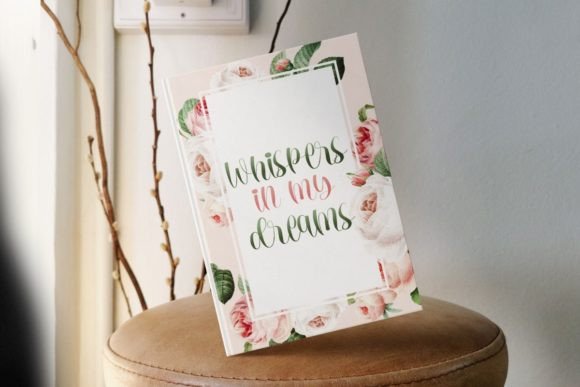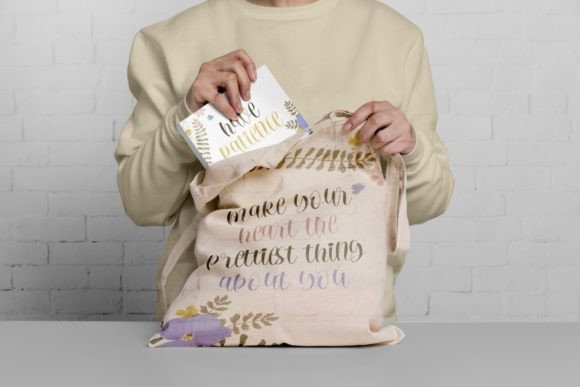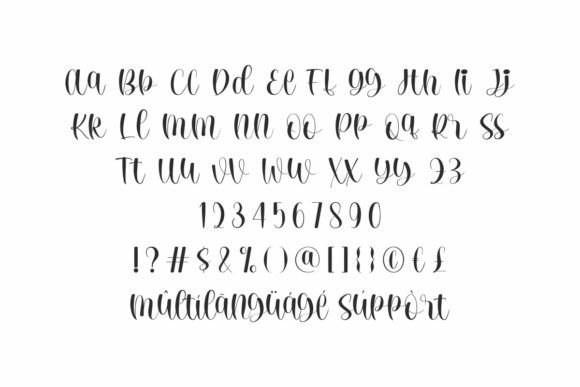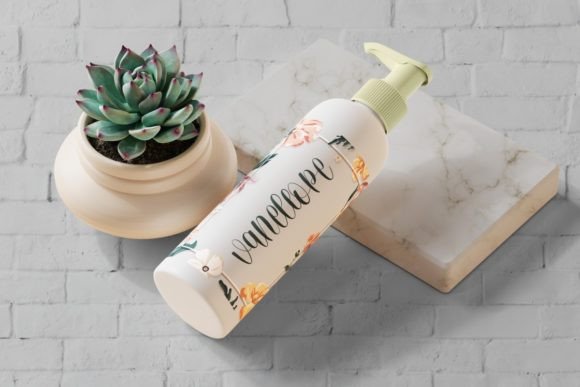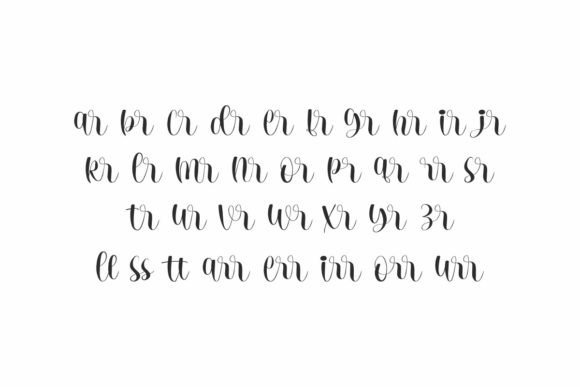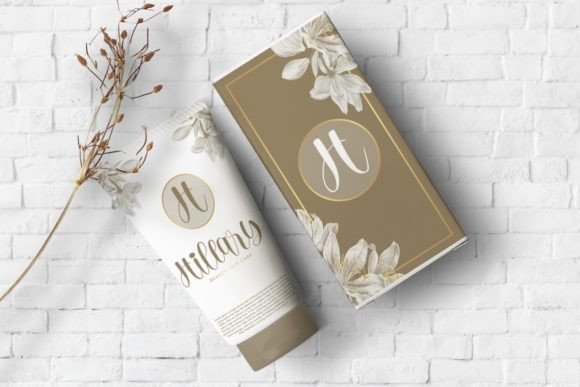
Creamydays Font: Elevate Your Designs with Elegant Calligraphy
Are you a designer or crafter looking for a font that exudes elegance and sophistication? Look no further than Creamydays Font, a stunning calligraphy script font that is sure to take your designs to the next level. With its natural lines that flow effortlessly with the tails, this font is not only beautiful but also easy to read.
Creamydays Font is incredibly versatile and can be used for a wide range of applications. Whether you’re designing for fashion, beauty products, spas and salons, florists, cafes, printing, custom design, advertisement, homeware, or more, this font is the perfect choice. Its elegant and sophisticated feel makes it ideal for any project that requires a touch of luxury and refinement.
One of the standout features of Creamydays Font is that it is PUA (Private Use Area) encoded. This means that you can access all of the amazing glyphs and ligatures with ease, giving you even more creative possibilities. With PUA encoding, you can unlock the full potential of this font and take your designs to new heights.
Key Features of Creamydays Font
- Lovely Stunning Calligraphy Script Font: Creamydays Font is a beautifully designed calligraphy script font that is sure to impress.
- Natural Lines and Easy to Read: The font features natural lines that flow effortlessly with the tails, making it easy to read and understand.
- PUA Encoded: With PUA encoding, you can access all of the amazing glyphs and ligatures with ease.
- Perfect for a Variety of Applications: From fashion to homeware, Creamydays Font is the perfect choice for any project that requires a touch of elegance and sophistication.
Why Choose Creamydays Font?
So why choose Creamydays Font over other fonts? Here are just a few reasons:
- Unique and Elegant Design: Creamydays Font features a unique and elegant design that is sure to stand out from the crowd.
- Highly Versatile: This font can be used for a wide range of applications, making it a great addition to any designer’s toolkit.
- Easy to Use: With PUA encoding, you can access all of the amazing glyphs and ligatures with ease, making it easy to get started with your designs.
Tips for Using Creamydays Font
Here are a few tips for using Creamydays Font in your designs:
- Pair it with Other Fonts: Creamydays Font pairs well with other fonts, so don’t be afraid to experiment with different combinations.
- Use it for Headings and Titles: This font is perfect for headings and titles, where you want to make a statement and add a touch of elegance.
- Experiment with Different Colors: Creamydays Font looks great in a variety of colors, so don’t be afraid to experiment and find the perfect shade for your design.
In conclusion, Creamydays Font is a stunning calligraphy script font that is sure to elevate your designs to the next level. With its natural lines, elegant design, and PUA encoding, this font is perfect for a wide range of applications. Whether you’re a designer or crafter, Creamydays Font is a great addition to any toolkit.